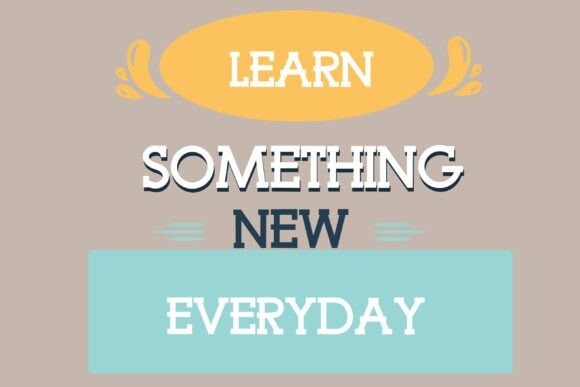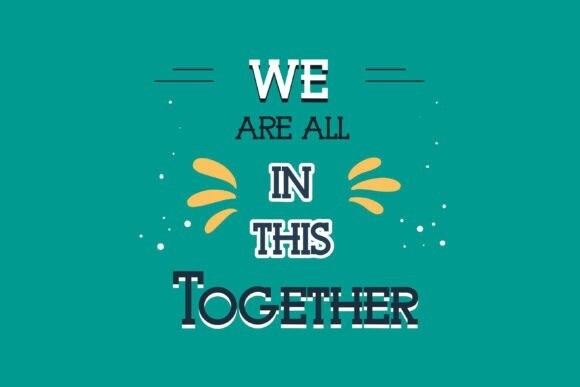
Arizona Font
Arizona is a stunning blend of boldness and sophistication, with a distinctive design that demands attention. Its thick serifs and strong lines give it a sense of power and stability, while its unique details and artistic flair add a touch of elegance and refinement. With its eye-catching beauty, it’s perfect for creating a strong visual impact on any project.